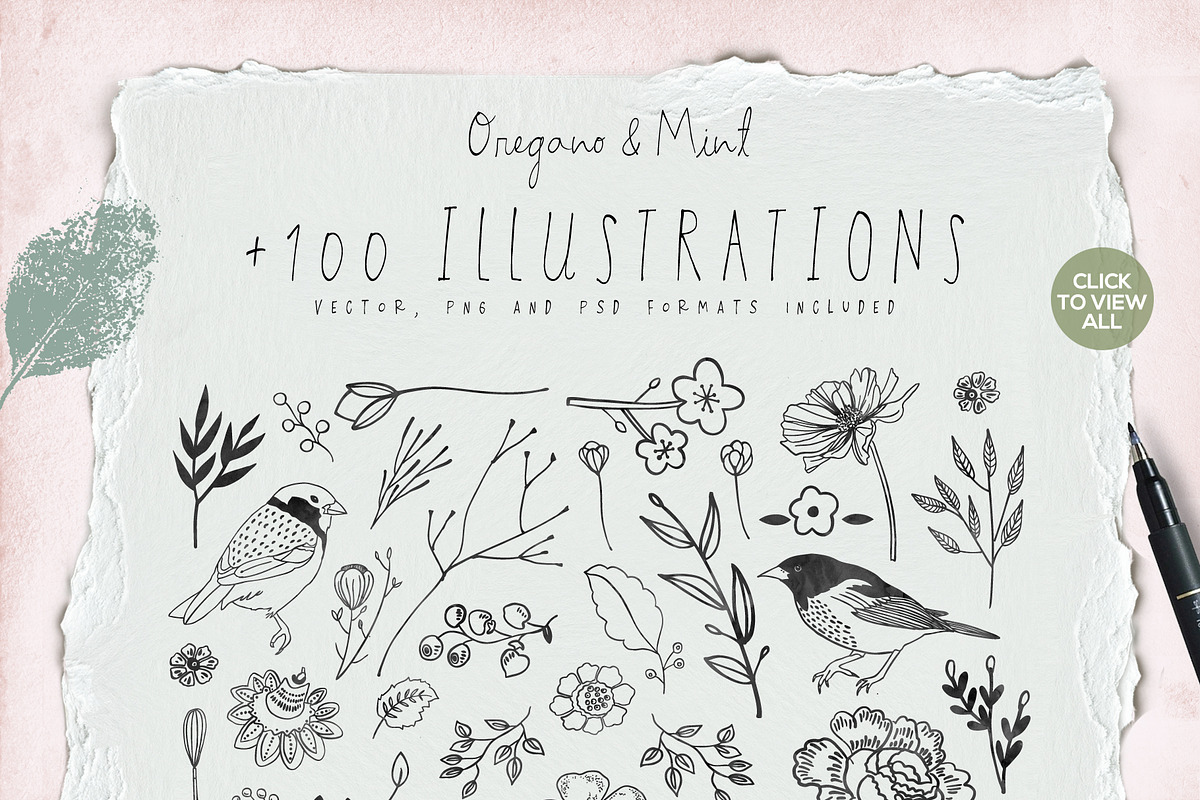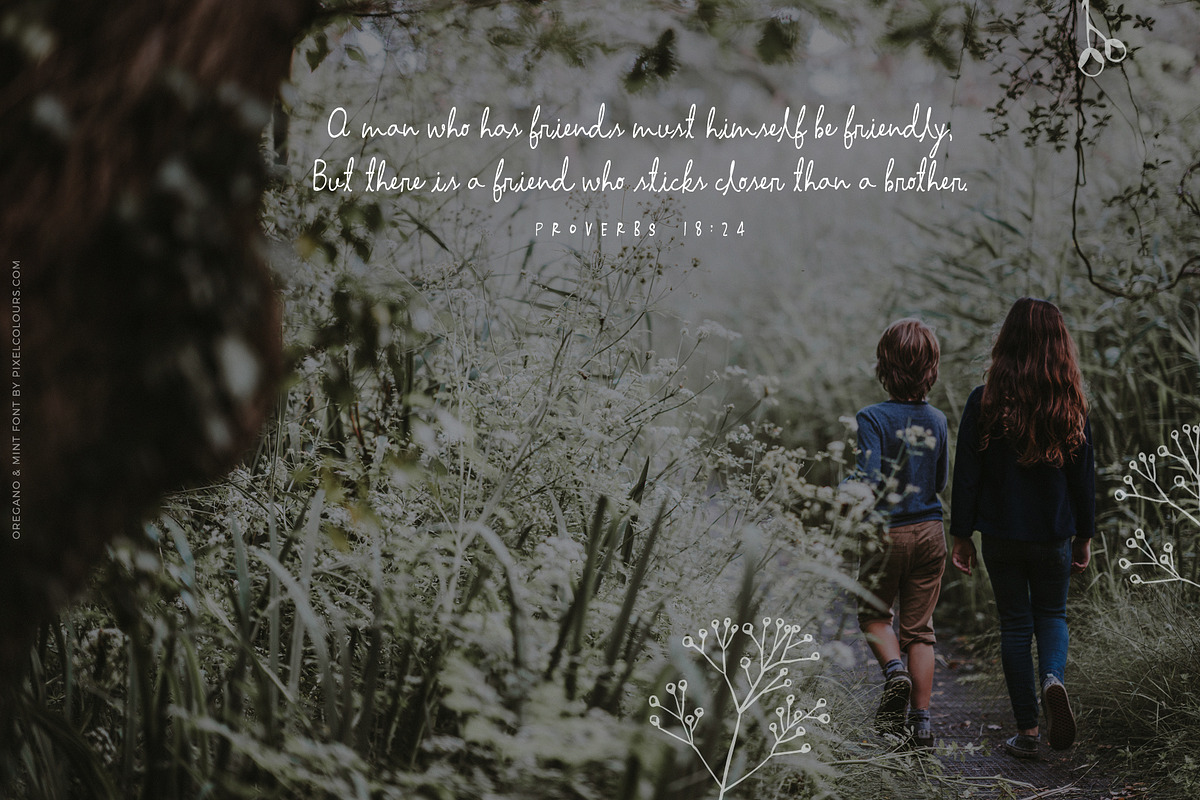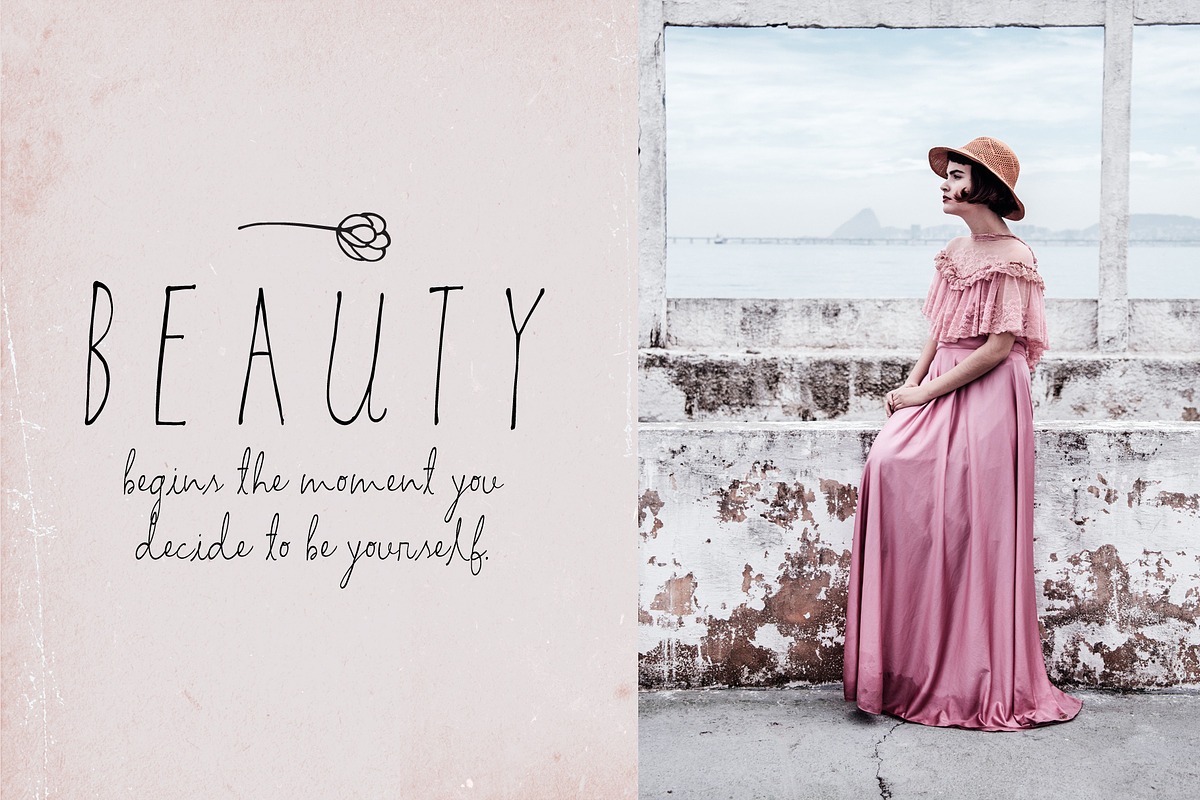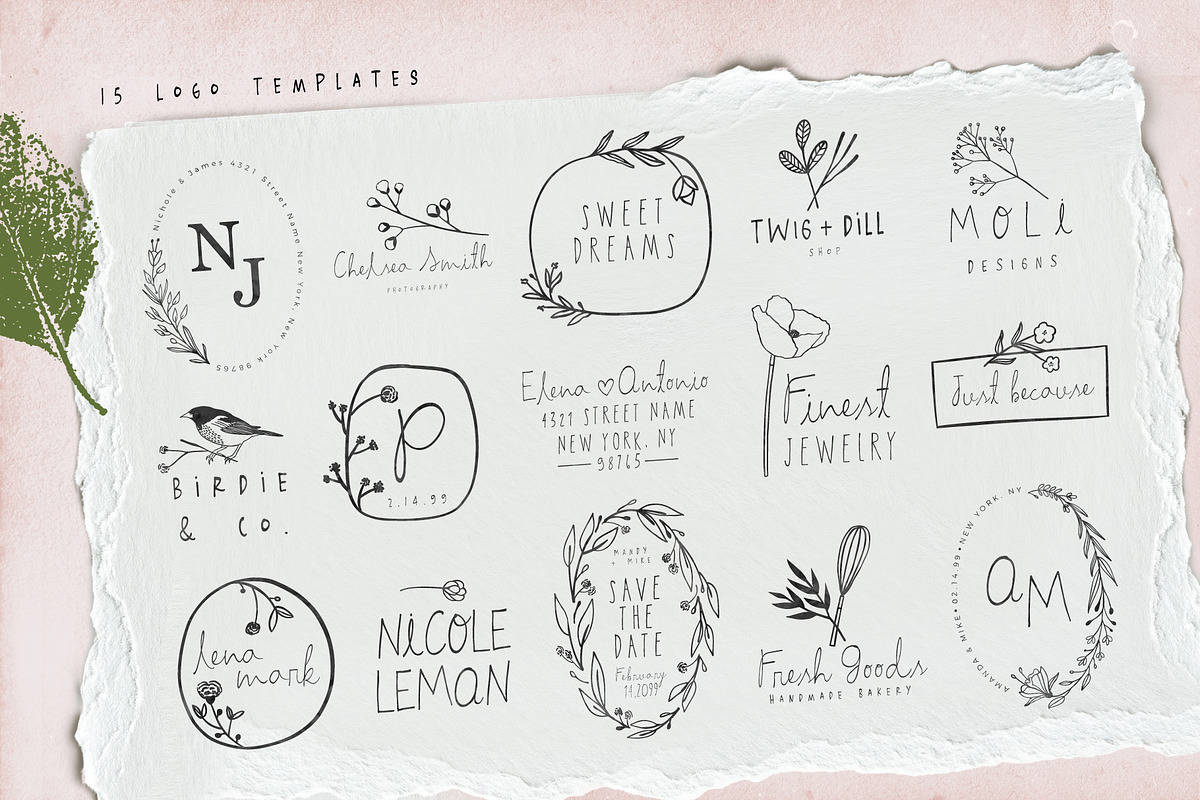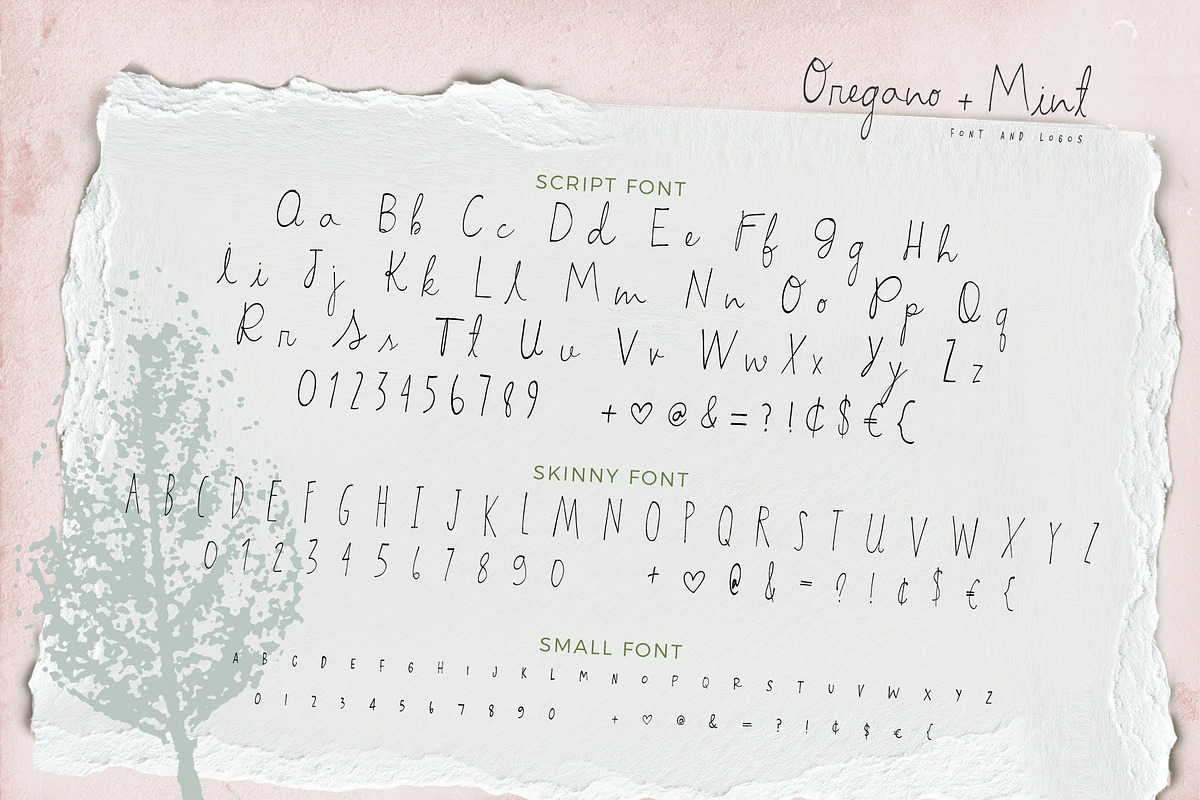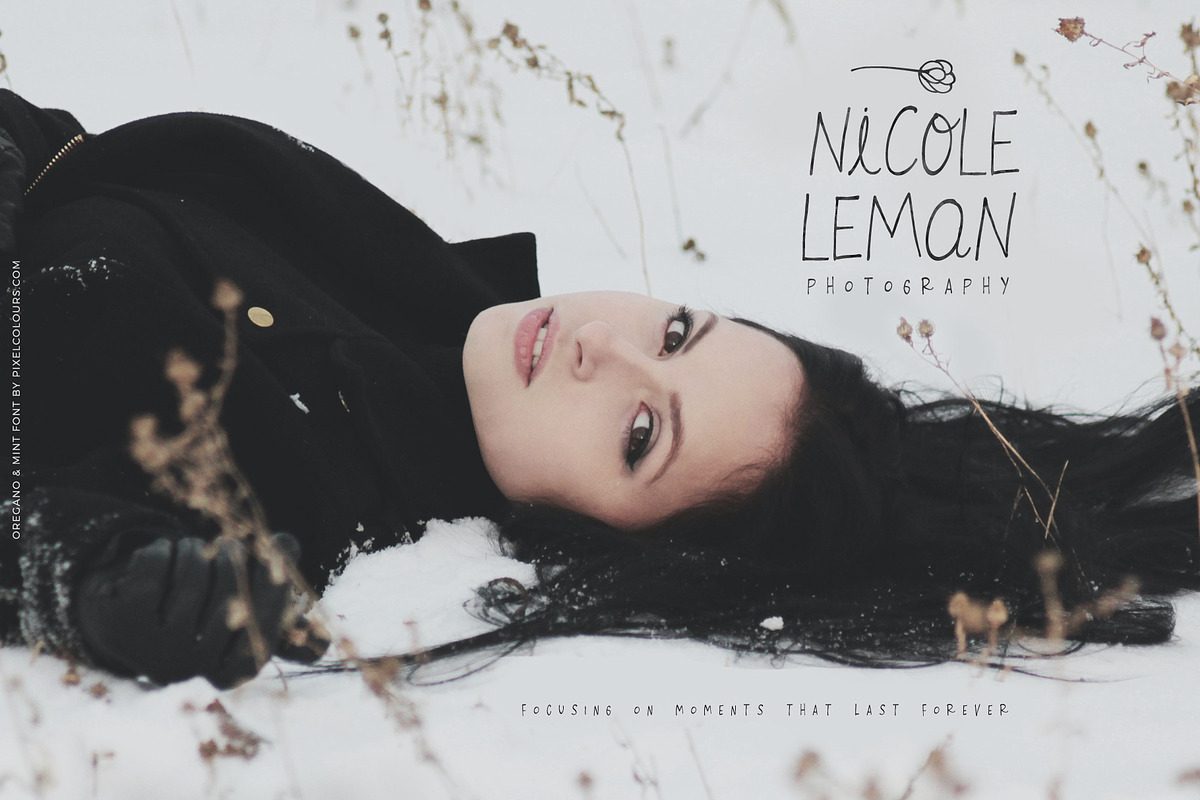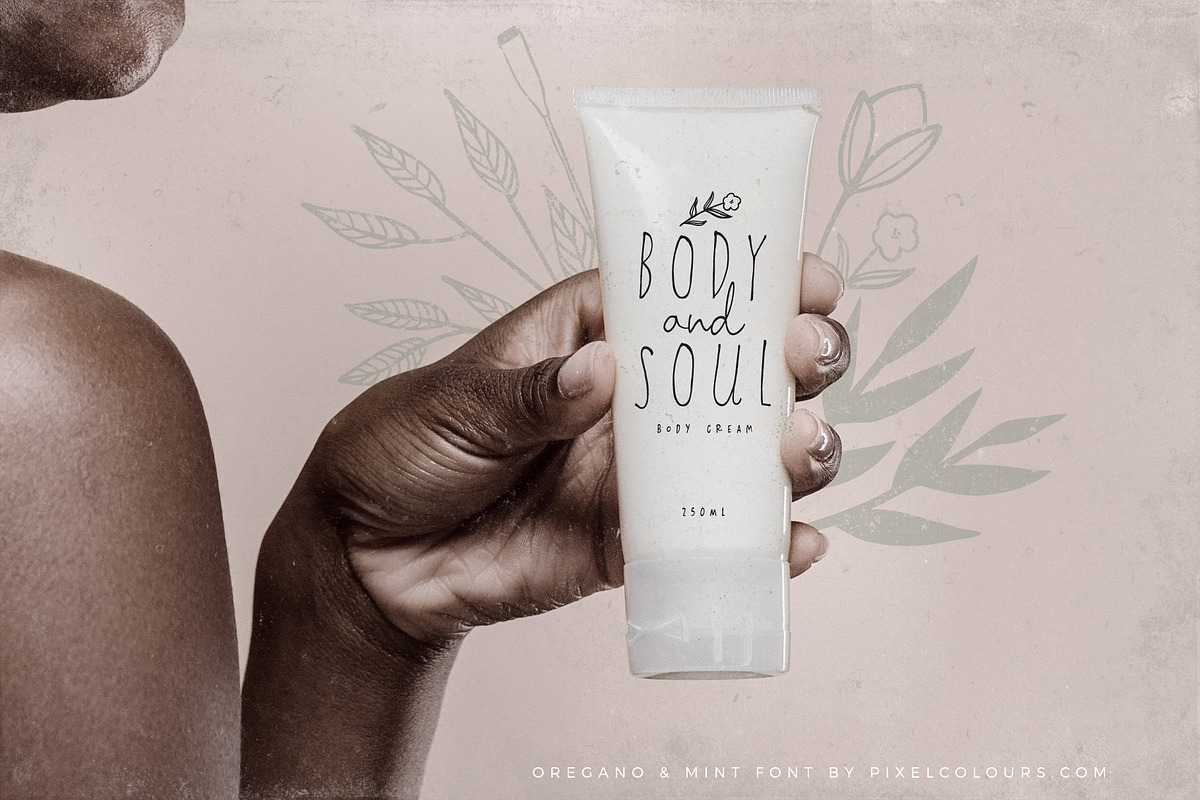
Oregano and Mint Font and Logos
Oregano & Mint is a beautiful feminine font family with a sweet handwriting style. Create quotes, business cards, wedding invitations, greeting cards or social media posts with a modern feel. All 3 fonts are designed to work perfectly together!
Includes 15 premade logo templates that you can easily edit by just adding your information and combine with the fonts.
Create your own compositions or logos from scratch with the illustrations pack.
Oregano and Mint Regular: the script font
Oregano and Mint Skinny: perfect to combine with the script or as is
Oregano and Mint Small: looks great in logos, as a tagline or for product descriptions